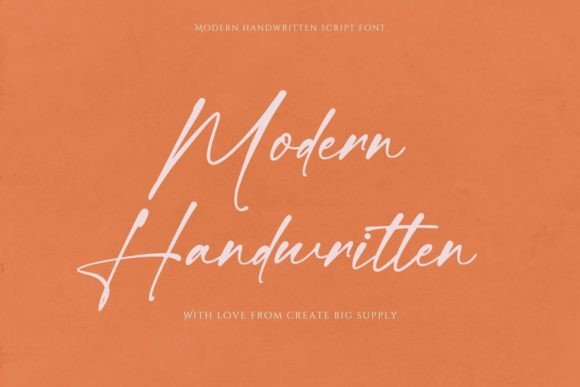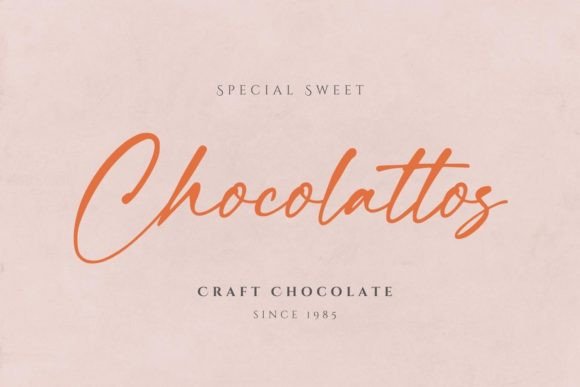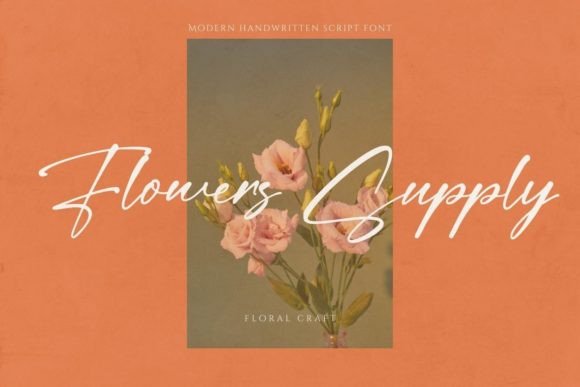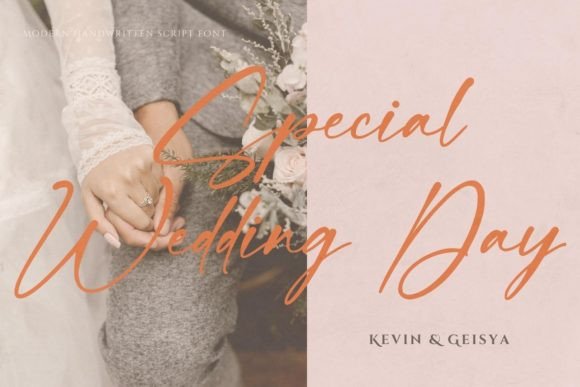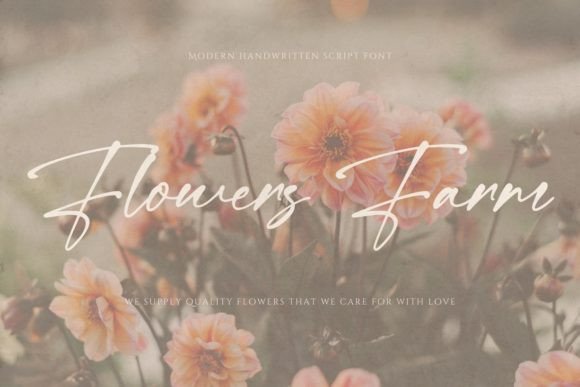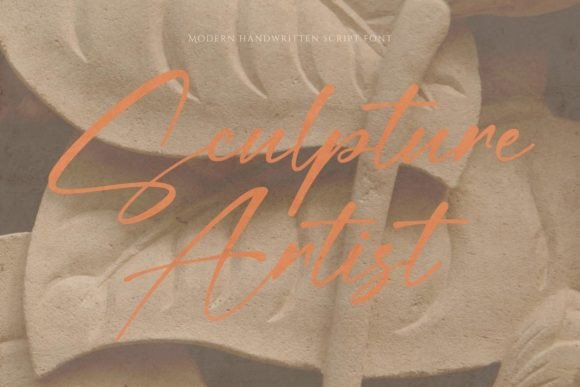
Introducing California Party: The Ultimate Handwritten Signature Script Font
Have you ever been working on a design project, and suddenly, you’re stuck on finding the perfect font to give it that personal touch? I recall a recent experience where I was designing a wedding invitation, and I just couldn’t find a font that captured the elegance and whimsy I was looking for. That’s when I discovered California Party, our newly released handwritten signature script font. In this article, we’ll dive into the features, benefits, and uses of California Party, and explore how it can elevate your designs.
What Makes California Party Special?
California Party is a beautifully crafted handwritten signature script font that exudes a natural and authentic feel. Its unique style makes it perfect for creating personalized signatures and adding a touch of uniqueness to your projects. Here are some of the features that make California Party stand out:
- ✨ Uppercase and lowercase letters
- ✅ Numbers and punctuations
- 🌎 Multilingual support
- 🔗 Ligatures and PUA encoding
An Honest Review of California Party
I’ve had the chance to work with California Party, and here are some things that I absolutely love:
- 💕 The natural and authentic handwritten style
- 🎨 The versatility of the font, making it suitable for various design projects
- 🔍 The attention to detail, including ligatures and PUA encoding
- 👍 The ease of use, even for those who are new to working with script fonts
While California Party is an excellent font, there are a few minor quirks to be aware of:
- ⚠️ Some users may find the font a bit too ornate for certain design projects
- 🤔 The font may not be suitable for very small font sizes, as some details may get lost
The Backstory of California Party
California Party was inspired by the carefree spirit of California’s sun-kissed beaches and the elegance of a handwritten signature. Our design team wanted to create a font that captured the essence of a personal touch, while still being versatile and easy to use. After months of careful crafting, California Party was born.
Q: Is California Party suitable for body text?
A: While California Party is a beautiful font, it’s best suited for headlines, titles, and short paragraphs. For body text, a more traditional font may be more suitable.